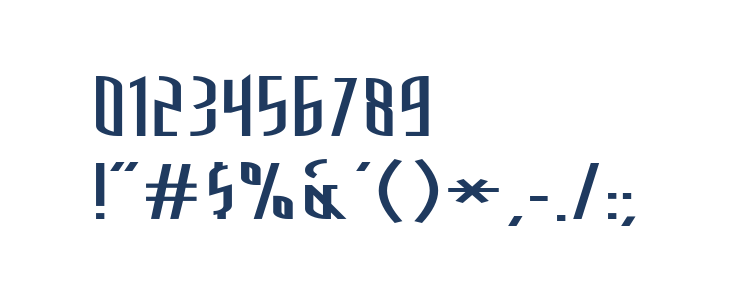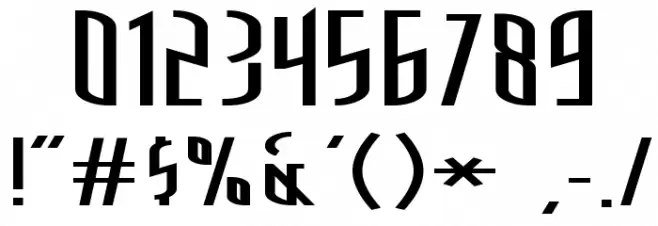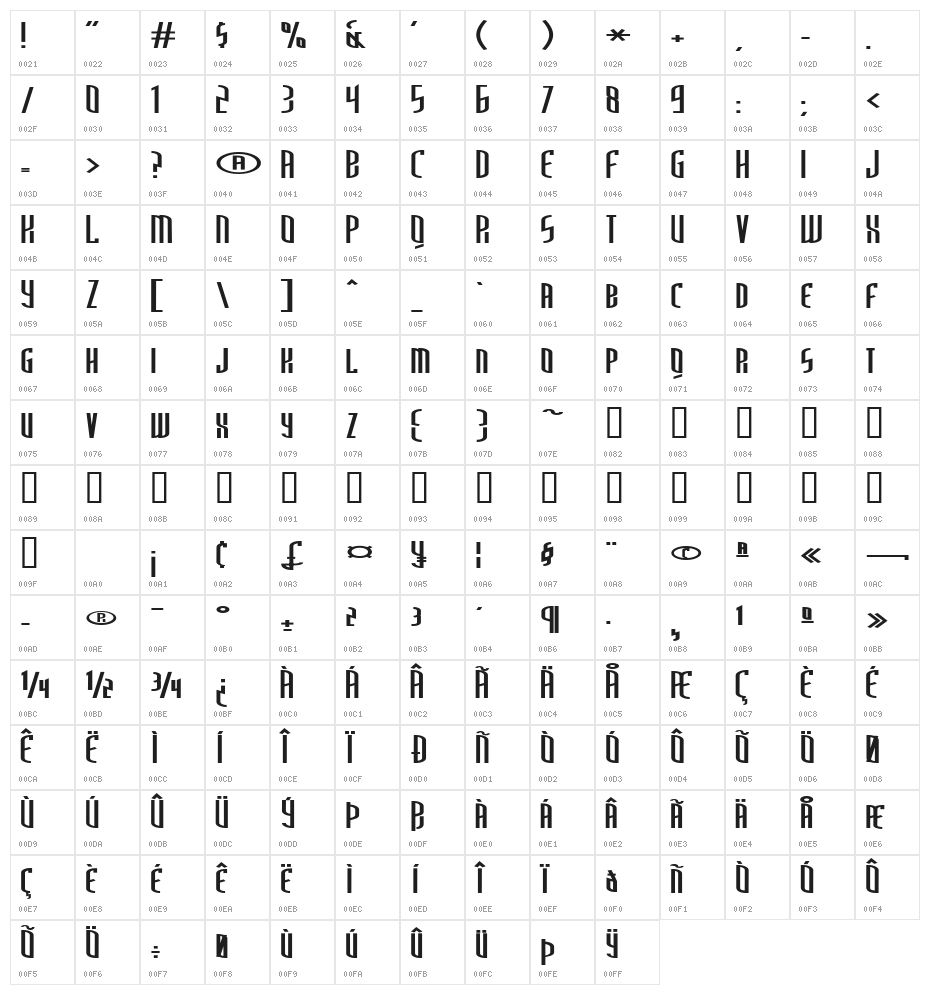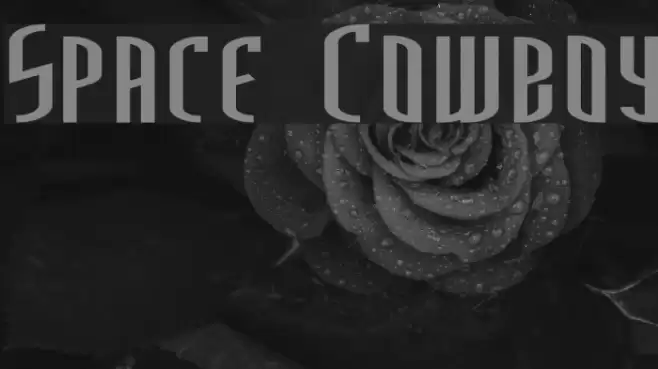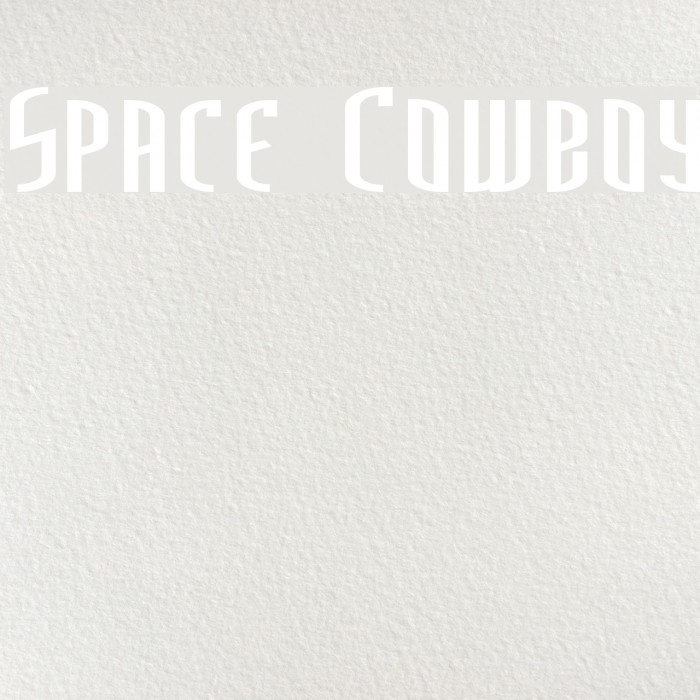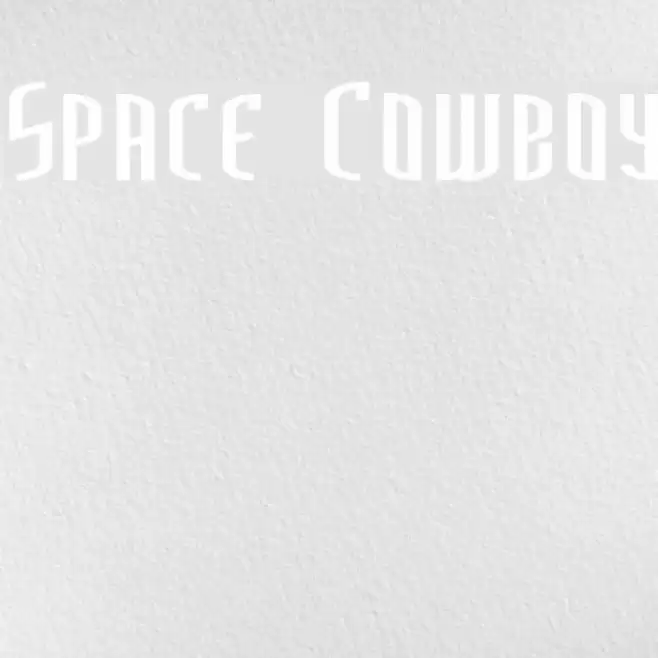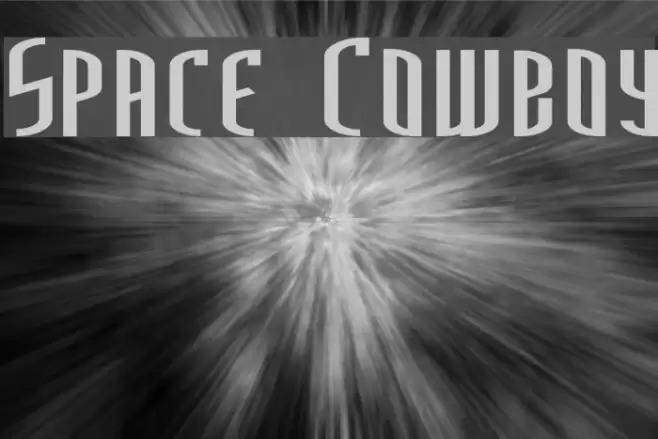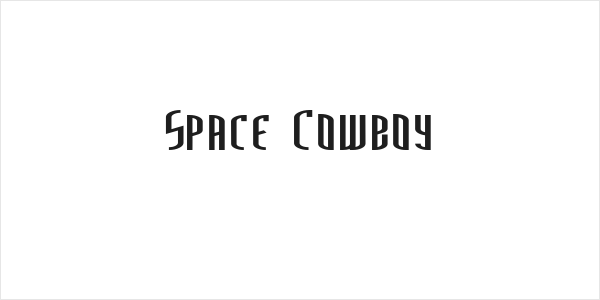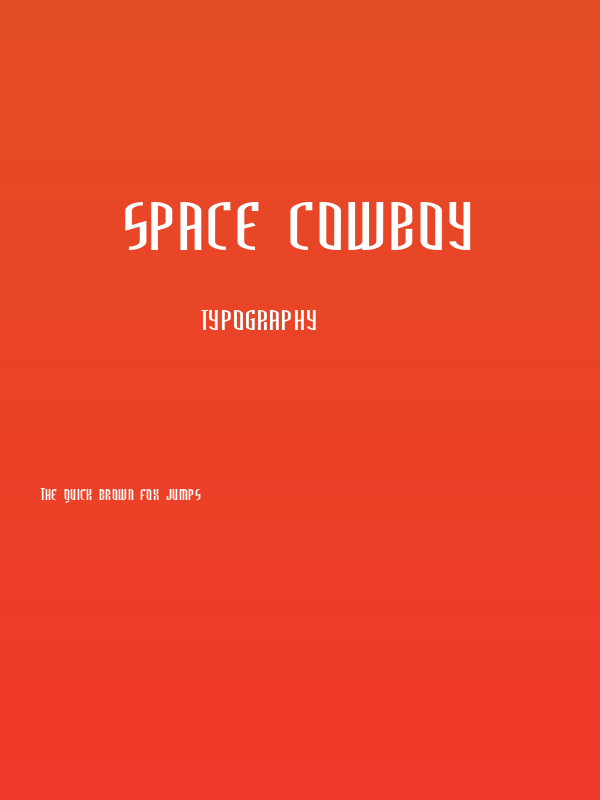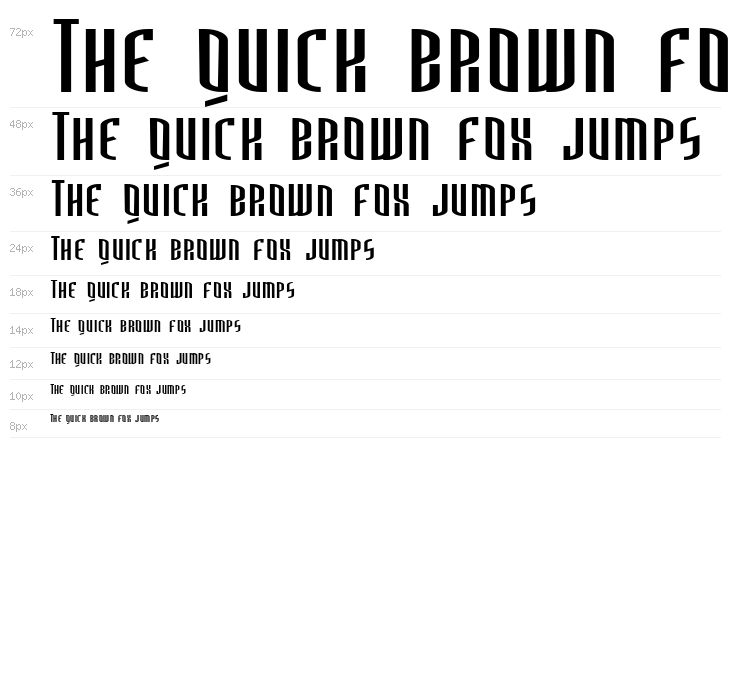
Space Cowboy Font
Space Cowboy Description
This font features a futuristic and bold design, characterized by its tall, narrow letterforms and sharp angles. The uppercase letters have a distinct geometric style, with elongated vertical lines and minimal curves, giving it a sleek and modern appearance. The lowercase letters maintain this angular aesthetic, providing a cohesive look across all characters. Numbers and special characters are designed with the same attention to detail, ensuring consistency throughout. The font's unique style makes it stand out, ideal for projects that require a modern and edgy feel.
Proposed ProjectsIdeal for sci-fi themed designs, technology branding, video game titles, and modern posters.